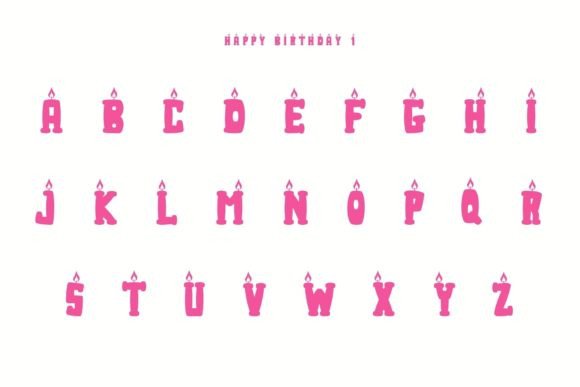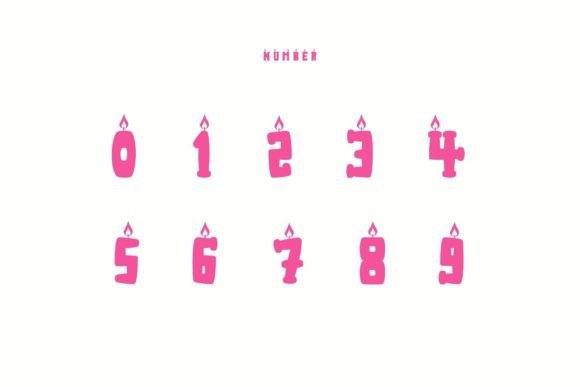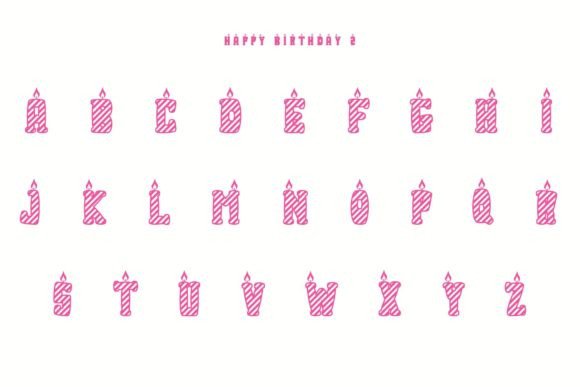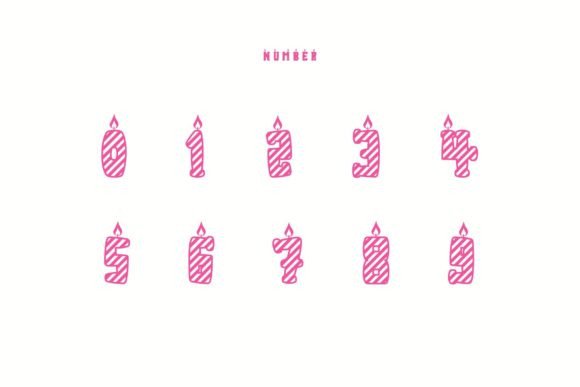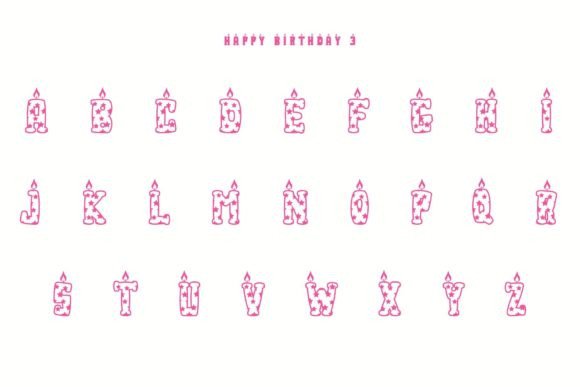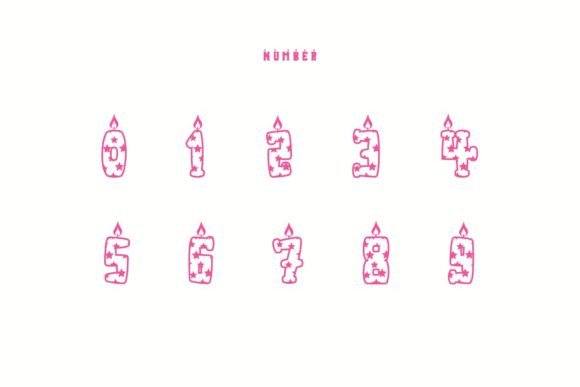
Introducing Happy Birthday Font: The Ultimate Decorative Font for Your Creative Projects
Are you looking for a font that can add a touch of playfulness and authenticity to your designs? Look no further than the Happy Birthday font! This cute and fun decorative font is perfect for a wide range of projects, from blog posts and logos to invitations, greeting cards, and more.
What Makes Happy Birthday Font So Special?
The Happy Birthday font is designed to bring a sense of joy and celebration to your designs. Its playful and authentic style makes it perfect for projects that require a personal touch. Whether you’re a designer, crafter, or DIY enthusiast, this font is sure to become a favorite in your collection.
Endless Possibilities with Happy Birthday Font
One of the best things about the Happy Birthday font is its versatility. It can be used for a wide range of projects, including:
• Blog Posts: Add a playful touch to your blog posts with the Happy Birthday font. It’s perfect for titles, headings, and even body text.
• Logos and Branding: Create a unique and memorable logo for your brand with the Happy Birthday font. Its playful style is sure to make your brand stand out.
• Ads: Add a touch of fun and personality to your ads with the Happy Birthday font. It’s perfect for creating eye-catching and engaging advertisements.
• Invitations: Create custom invitations for parties, events, and celebrations with the Happy Birthday font. Its playful style is sure to set the tone for a fun and festive occasion.
• Greeting Cards: Design custom greeting cards for birthdays, holidays, and other special occasions with the Happy Birthday font.
• Planners and Photo Albums: Add a personal touch to your planners and photo albums with the Happy Birthday font. It’s perfect for creating custom titles, headings, and captions.
• Decorations: Use the Happy Birthday font to create custom decorations for parties, events, and celebrations. Its playful style is sure to add a touch of fun and personality to any decor.
Why Choose Happy Birthday Font?
There are many reasons why the Happy Birthday font is a great choice for your creative projects. Here are just a few:
• Playful and Authentic Style: The Happy Birthday font has a unique and playful style that’s sure to add a touch of personality to your designs.
• Versatility: This font can be used for a wide range of projects, from blog posts and logos to invitations and decorations.
• High-Quality Design: The Happy Birthday font is designed with high-quality graphics, ensuring that it looks great in any design.
Font Name Happy Birthday Font
Author Brown Cupple Fonts
The Happy Birthday font is a versatile and fun decorative font that’s perfect for a wide range of creative projects. Its playful and authentic style makes it a great choice for designers, crafters, and DIY enthusiasts. With its ease of use and high-quality design, the Happy Birthday font is sure to become a favorite in your collection. So why wait? Download the Happy Birthday font today and start adding a touch of playfulness and authenticity to your designs!
Whether you’re creating custom invitations, designing a logo, or simply adding a personal touch to your blog posts, the Happy Birthday font is the perfect choice. Its versatility and ease of use make it a great addition to any design project. So go ahead, get creative, and have fun with the Happy Birthday font!